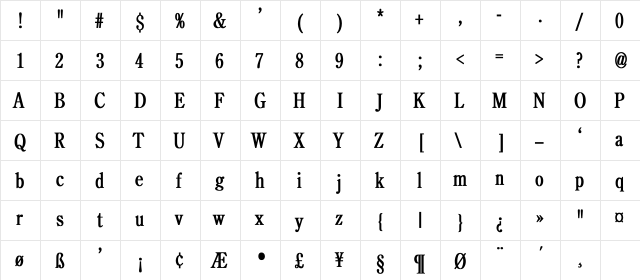
BackRoad Cond Bold Bold
Design Context for BackRoad Cond Bold Typeface
BackRoad Cond Bold takes a measured approach to typography — its balanced proportions and neutral character make it a reliable workhorse for both digital and print work. The heavy weight commands attention and anchors typographic hierarchies. Its narrow stance lets it pack a punch even in space-constrained designs.